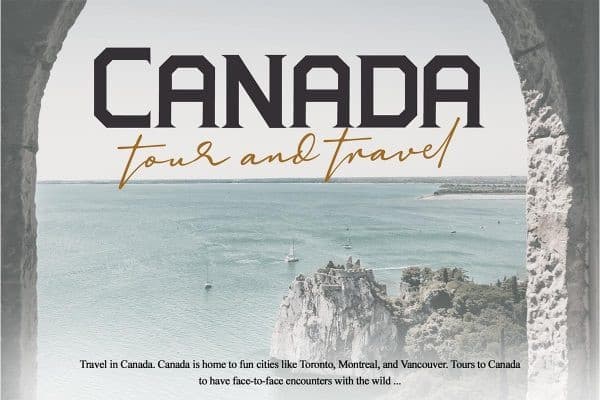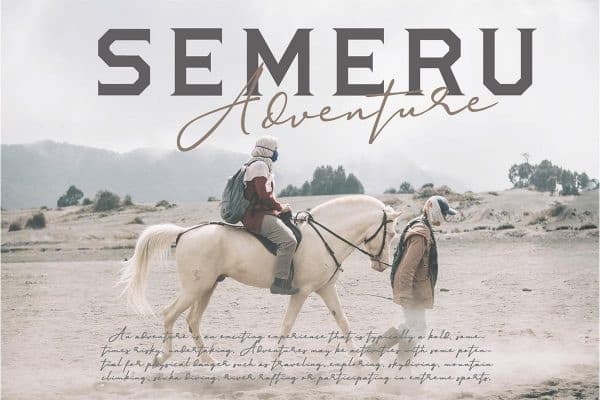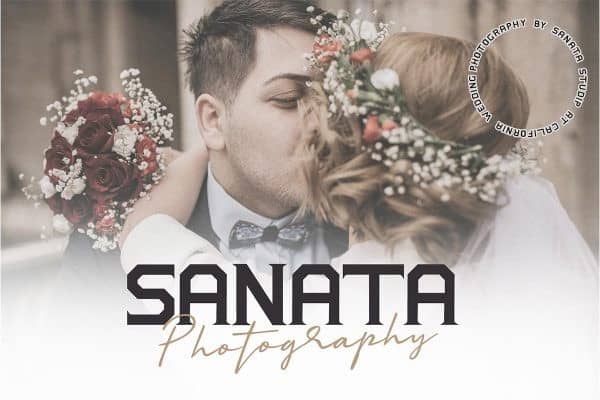
Hillton And Absolute Display Font has been made carefully to make sure its premium quality and luxury feel. The ligatures makes this typeface unique and stands out rather than the regular serif font. This typeset is perfect for brand logo, invitations, greeting card, or even any kind of project. With multilingual feature and style variations, this typeface would further enhance the aestethical aspect of your work.